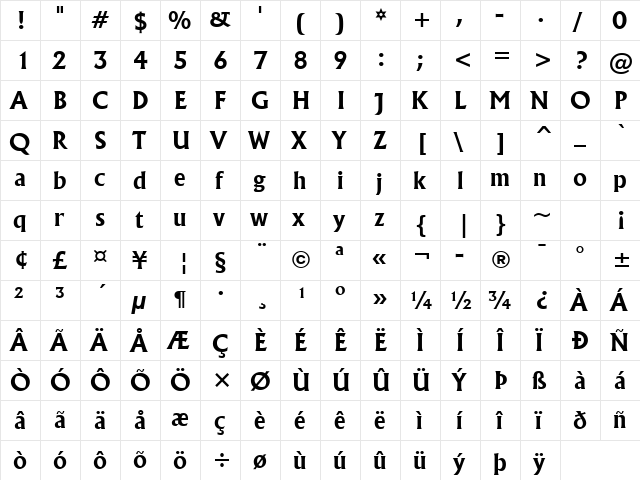
Flareserif821 Lt BT Bold
Design Context for Flareserif821 Lt BT Typeface
Flareserif821 Lt BT carries the refined structure of traditional serif typography, with bracketed terminals and considered proportions that communicate credibility and craft. The heavy weight commands attention and anchors typographic hierarchies.
Pro Tip: Set Flareserif821 Lt BT at slightly larger body copy sizes than you would a regular-weight serif to compensate for its delicate stroke contrast.